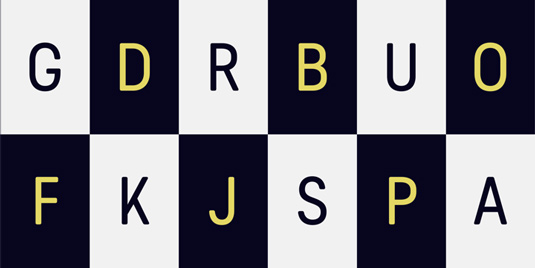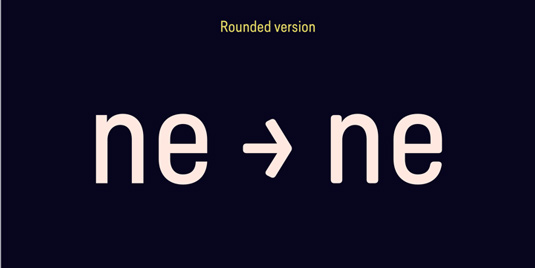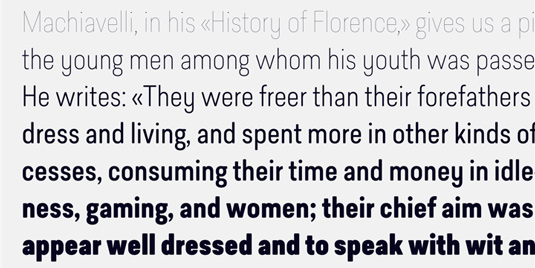
Font of the day: Predige Rounded
Every day we showcase the best fonts on the web. Today it's Predige Rounded from Type Dynamic.
Predige Rounded from Type Dynamic
A softer version of Predige, Predige Rounded is a condensed and constructed sans type family, which includes seven weights; hairline, black, thin, light, regular, medium, bold and their corresponding italics.